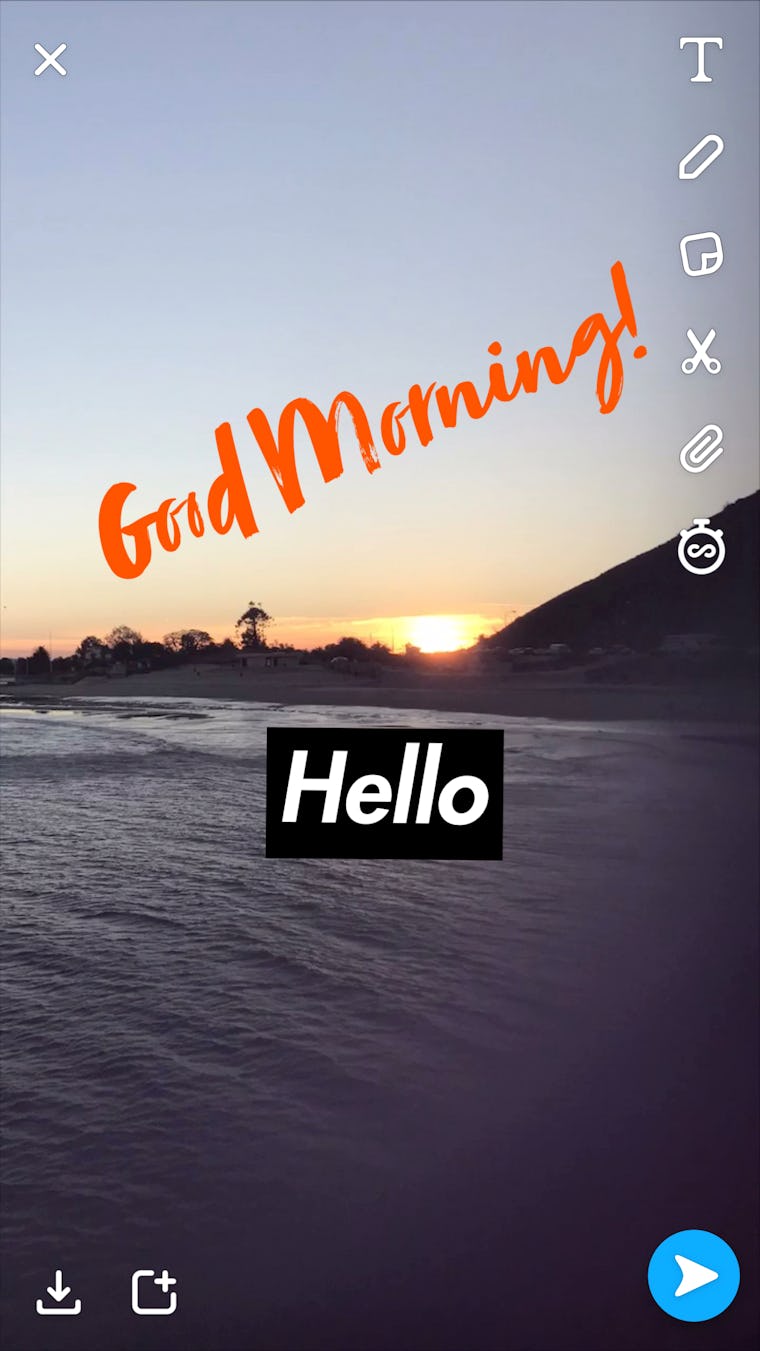
Change Font Snapchat
Change Font Snapchat - Resize text by pinching your caption like you’re zooming in and. Brush (artistic) glow (brightens up your text and makes it visible) rainbow ( white outline around its text. Web change the text style with the options shown above the keyboard. Web type your text. Web chat messages might get larger or smaller as snapchat syncs the text size with the global font size on users' devices. Write about your lunch, wish your pal a happy birthday, or borrow some sassy song lyrics to narrate.
Web chat messages might get larger or smaller as snapchat syncs the text size with the global font size on users' devices. Resize text by pinching your caption like you’re zooming in and. Web change the text style with the options shown above the keyboard. Write about your lunch, wish your pal a happy birthday, or borrow some sassy song lyrics to narrate. Brush (artistic) glow (brightens up your text and makes it visible) rainbow ( white outline around its text. Web type your text.
Web change the text style with the options shown above the keyboard. Web type your text. Web chat messages might get larger or smaller as snapchat syncs the text size with the global font size on users' devices. Write about your lunch, wish your pal a happy birthday, or borrow some sassy song lyrics to narrate. Resize text by pinching your caption like you’re zooming in and. Brush (artistic) glow (brightens up your text and makes it visible) rainbow ( white outline around its text.
Resize text by pinching your caption like you’re zooming in and. Write about your lunch, wish your pal a happy birthday, or borrow some sassy song lyrics to narrate. Brush (artistic) glow (brightens up your text and makes it visible) rainbow ( white outline around its text. Web type your text. Web chat messages might get larger or smaller as.
Brush (artistic) glow (brightens up your text and makes it visible) rainbow ( white outline around its text. Write about your lunch, wish your pal a happy birthday, or borrow some sassy song lyrics to narrate. Web chat messages might get larger or smaller as snapchat syncs the text size with the global font size on users' devices. Resize text.
Brush (artistic) glow (brightens up your text and makes it visible) rainbow ( white outline around its text. Web change the text style with the options shown above the keyboard. Resize text by pinching your caption like you’re zooming in and. Web chat messages might get larger or smaller as snapchat syncs the text size with the global font size.
Web change the text style with the options shown above the keyboard. Write about your lunch, wish your pal a happy birthday, or borrow some sassy song lyrics to narrate. Resize text by pinching your caption like you’re zooming in and. Brush (artistic) glow (brightens up your text and makes it visible) rainbow ( white outline around its text. Web.
Web chat messages might get larger or smaller as snapchat syncs the text size with the global font size on users' devices. Web type your text. Write about your lunch, wish your pal a happy birthday, or borrow some sassy song lyrics to narrate. Resize text by pinching your caption like you’re zooming in and. Brush (artistic) glow (brightens up.
Ultra Thin Snapchat Font Trick (January 2018) How to Change Big Font on
Web chat messages might get larger or smaller as snapchat syncs the text size with the global font size on users' devices. Web change the text style with the options shown above the keyboard. Resize text by pinching your caption like you’re zooming in and. Brush (artistic) glow (brightens up your text and makes it visible) rainbow ( white outline.
Snapchat Here’s How to Add Text to a Snap Adweek
Web chat messages might get larger or smaller as snapchat syncs the text size with the global font size on users' devices. Resize text by pinching your caption like you’re zooming in and. Brush (artistic) glow (brightens up your text and makes it visible) rainbow ( white outline around its text. Write about your lunch, wish your pal a happy.
How to Change Font Style of Text in Snapchat? Techwarior
Web type your text. Brush (artistic) glow (brightens up your text and makes it visible) rainbow ( white outline around its text. Web chat messages might get larger or smaller as snapchat syncs the text size with the global font size on users' devices. Resize text by pinching your caption like you’re zooming in and. Web change the text style.
Web type your text. Resize text by pinching your caption like you’re zooming in and. Web change the text style with the options shown above the keyboard. Write about your lunch, wish your pal a happy birthday, or borrow some sassy song lyrics to narrate. Web chat messages might get larger or smaller as snapchat syncs the text size with.